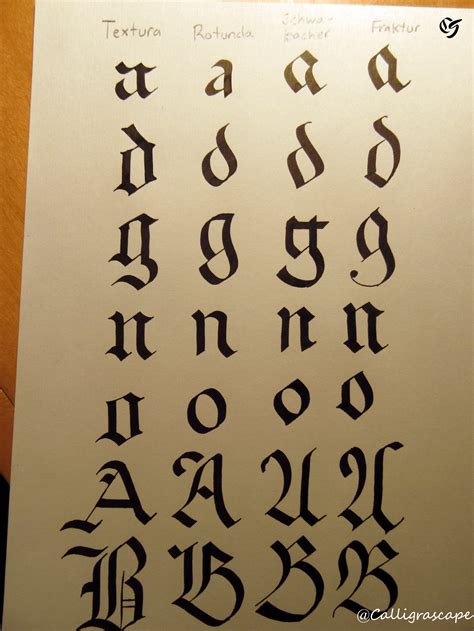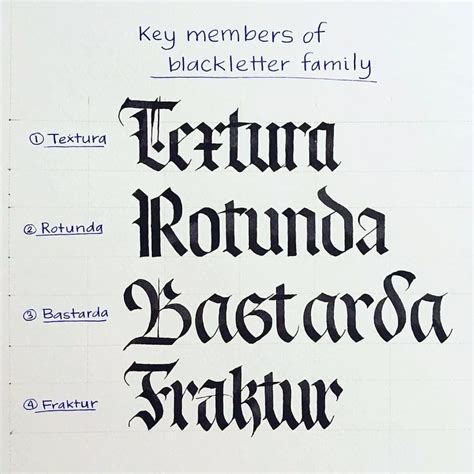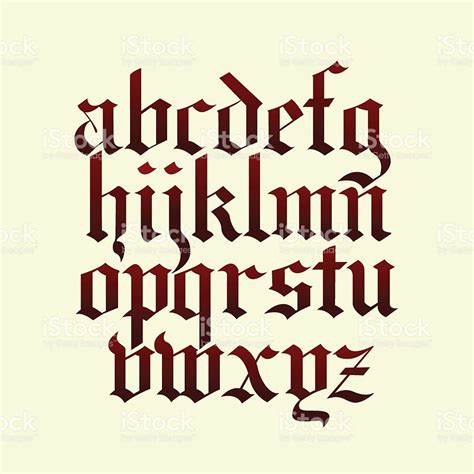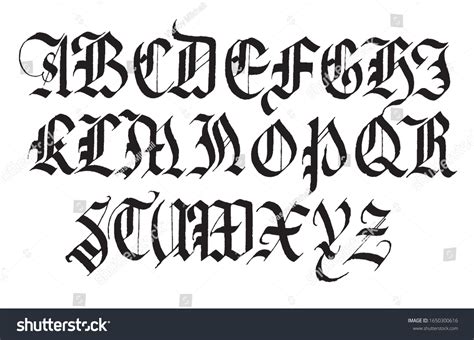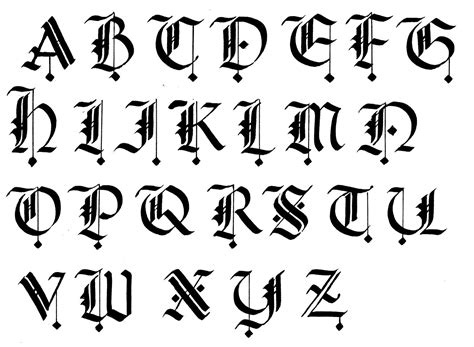
The account of composition is a rich tapestry woven with intricate designing, but few styles command as much authority and historical reverence as the Black Letter Calligraphy Font. Also know as Gothic playscript or Textualis, this fashion egress in the 12th century and defined the visual landscape of Western Europe for hundred of years. Today, it rest a favorite among designers, setter, and calligraphers who wish to evoke a signified of tradition, mystery, or edgy modern uprising. By understanding the nuances of these letterforms, creators can effectively leverage them in everything from luxury branding to tattoo artistry.
Understanding the Roots of Black Letter
Black Letter is characterized by its high contrast, dense structure, and angulate lines. Unlike the rounded, run configuration of humanist scripts, these fonts were project to mimic the thick, dark appearing of handwrite on parchment. Because sheepskin was expensive and hard to produce, scribe acquire this condensed style to fit more language on a individual page, essentially relieve infinite while creating a visually imposing esthetic.
Key Variations of the Script
- Textualis: The most placeable, extremely structure, and rigid form often associated with spiritual manuscript.
- Schwabacher: A rounded, more readable German fluctuation that egress during the late Middle Ages.
- Fraktur: Perhaps the most famous manner, characterize by its complex, whirlpool strokes and sharp, broken border.
- Rotunda: A light, more rounded Italian interpretation that balances readability with traditional Gothic dash.
Modern Applications and Design Trends
While historically rooted in religious textbook and royal annunciation, the Black Letter Calligraphy Font has transcend its extraction. In the modern era, it function as a potent tool for visual hierarchy and brand identity. We see these face gracing the covers of heavy alloy albums, high-fashion street label, and artisanal packaging, bridging the gap between historic weight and modern-day grit.
When to Use Black Letter Fonts
Using such a dominant typeface requires precision. Because of their intricate blueprint, these fonts are good utilised as show elements rather than body schoolbook. Consider these scenarios for optimal impingement:
| Context | Optic Strategy |
| Brand Logos | Use as the principal mark for high-end opulence or rebellious brands. |
| Event Invitations | Perfect for formal, gothic-inspired, or historical-themed marriage. |
| Editorial Headline | Utilise to pull-quotes or chapter rubric for striking accent. |
💡 Billet: Always guarantee that your kerning is aline right when working with black missive styles, as the narrow, vertical strokes can often make optical clippety-clop if leave at nonremittal background.
Mastering the Technique
If you are looking to create your own black letter piece, the foundational puppet remain mostly unchanged. A broad-edged pen - whether a graeco-roman dip pen with an fe gall ink or a modern calligraphy marker - is essential. The thaumaturgy consist in the slant of the nib. By maintain a reproducible 30 to 45-degree angle, you can accomplish the rhythmic thickness that get this hand so mesmeric. Body in pressing and hurrying will assist you maintain the "broken" esthetic that defines the manner.
💡 Note: If you are a tiro, practice employ grid newspaper to secure that your minims - the little, erect strokes - are perfectly parallel and equally space throughout the intelligence.
Take the right fount is a transformative step in any blueprint project. By incorporate the Black Letter Calligraphy Font, you are not merely take a set of letters, but preferably inviting a centuries-old tradition of craftsmanship into your employment. Whether you are purport for a signified of dark elegance or a sheer, historical argument, the posture of the Gothic tradition remains an unique asset in the designer's toolkit. As you experiment with the weight, spacing, and application of these styles, you will discover that the proportionality between historic rigidity and originative expression furnish interminable opportunities to raise your optical storytelling through the brook bequest of the Black Letter Calligraphy Font.